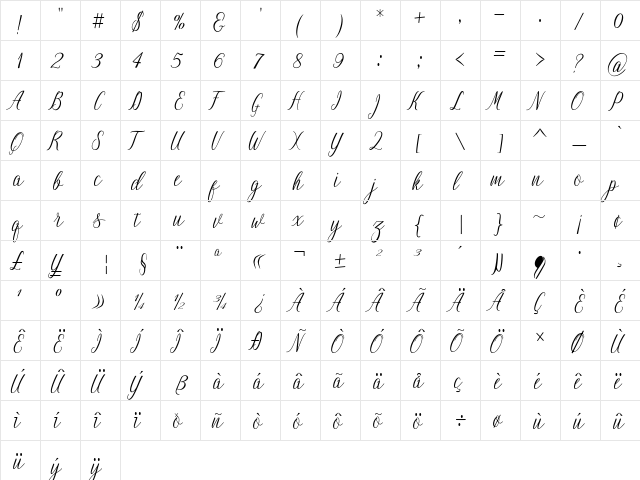
NightingaleScript Regular
Design Context for NightingaleScript Typeface
NightingaleScript flows with the natural rhythm of handwritten lettering, making it ideal for designs that call for warmth and personal expression.
Font Pairing: Combine NightingaleScript with a simple geometric sans for maximum contrast — the tension between flowing curves and clean structure is a classic typographic pairing.
Pro Tip: Pair NightingaleScript with a clean sans-serif for supporting text. The contrast between fluid script and geometric structure creates an elegant typographic hierarchy.